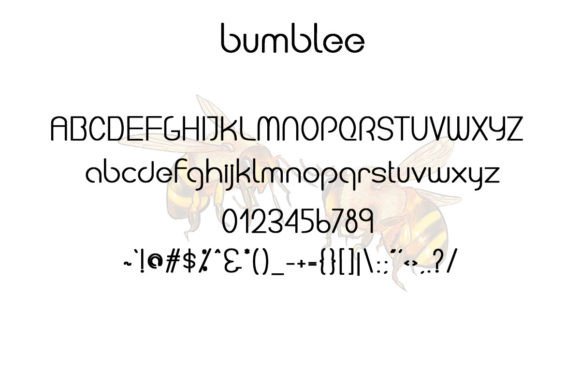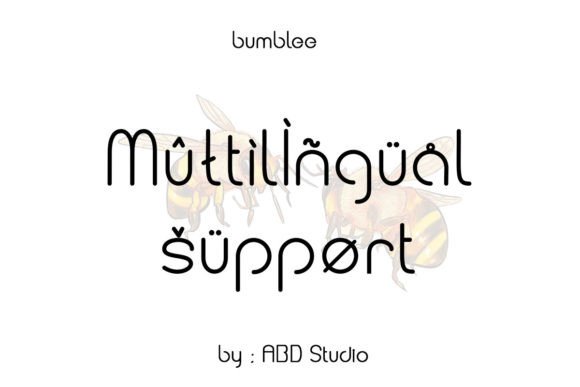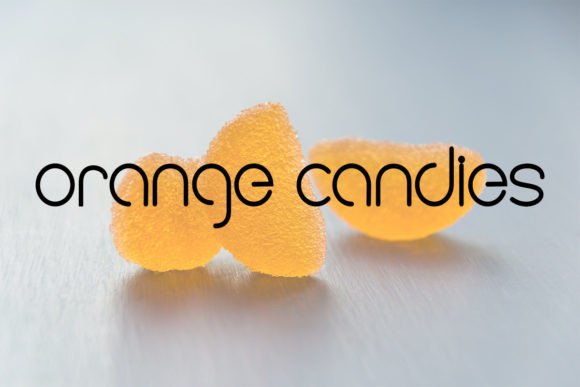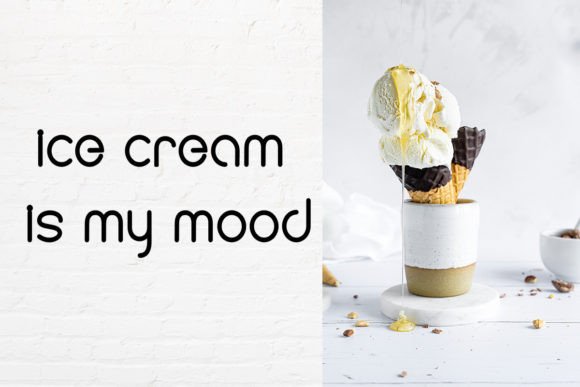
Bumblee Font: The Ultimate Sans Serif for Modern Designs
In the world of typography, fonts play a crucial role in making or breaking a design. A perfect font can elevate your creative project, making it stand out from the crowd. If you’re a designer or crafter looking for a versatile and modern sans serif font, look no further than Bumblee Font. In this article, we’ll explore the features and benefits of Bumblee Font and why it’s a must-have for your design arsenal.
What is Bumblee Font?
Bumblee is a minimalist and neat sans serif font designed to complement a wide range of projects. Its clean and simple lines make it an excellent choice for designers and crafters seeking a modern and sophisticated look. With its versatility and legibility, Bumblee Font can be used for various applications, from branding and advertising to packaging and digital media.
Key Features of Bumblee Font
- Minimalist Design: Bumblee Font boasts a sleek and minimalist design, making it perfect for modern designs that require a clean and simple look.
- Sans Serif: As a sans serif font, Bumblee Font is ideal for digital media, as it remains clear and legible even at small sizes.
- Versatility: Bumblee Font can be paired with a wide range of projects, from elegant and sophisticated designs to bold and edgy ones.
- Large Character Set: Bumblee Font comes with an extensive character set, ensuring that you have access to a broad range of letters, symbols, and punctuation marks.
Benefits of Using Bumblee Font
So, why should you choose Bumblee Font for your next project? Here are some benefits that make it an excellent addition to your font library:
- Elegance and Sophistication: Bumblee Font adds a touch of elegance and sophistication to your designs, making them perfect for high-end brands and luxury products.
- Readability: The font’s clean lines and simple design ensure excellent readability, even at small sizes.
- Flexibility: Bumblee Font can be used for various applications, from print materials to digital media, and even web design.
- Unique and Memorable: Bumblee Font’s distinctive design makes it easy to create unique and memorable designs that stand out from the competition.
Who Can Benefit from Bumblee Font?
Bumblee Font is an excellent choice for a wide range of designers and crafters, including:
- Graphic Designers: Bumblee Font is perfect for creating stunning visual identities, logos, and branding materials.
- Web Designers: The font’s clean design and excellent readability make it ideal for web design, ensuring a great user experience.
- Packaging Designers: Bumblee Font is suitable for packaging design, adding a touch of sophistication and elegance to product labels and packaging.
- Crafters and Makers: Bumblee Font can be used for various crafting projects, such as handmade cards, invitations, and DIY signs.
In conclusion, Bumblee Font is a versatile and modern sans serif font that’s perfect for designers and crafters seeking a clean and sophisticated look. Its minimalist design, extensive character set, and excellent readability make it an excellent addition to your font library. Whether you’re working on a branding project, web design, or crafting a handmade gift, Bumblee Font is sure to elevate your creative ideas and make them stand out. So, add Bumblee Font to your collection today and discover the power of minimalist typography!